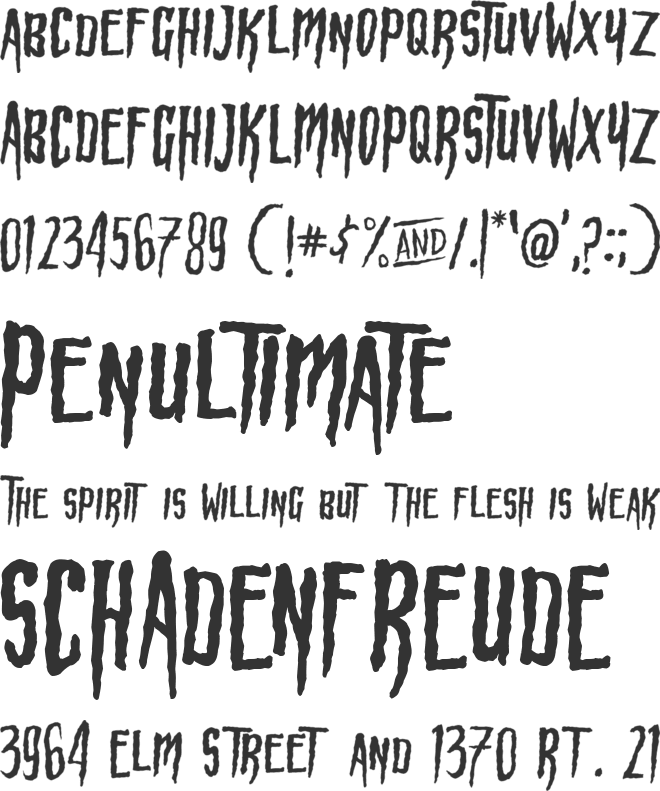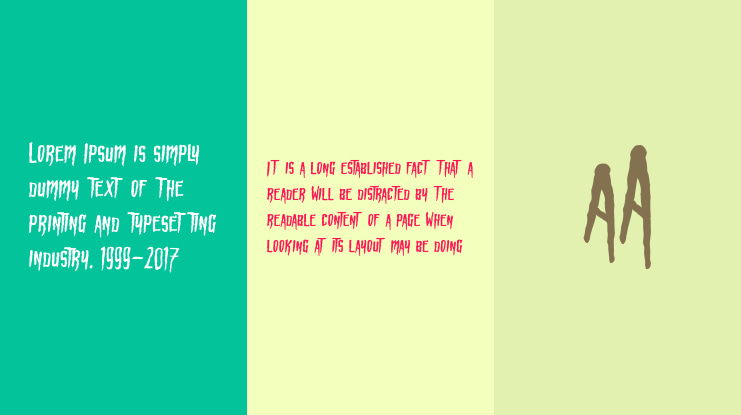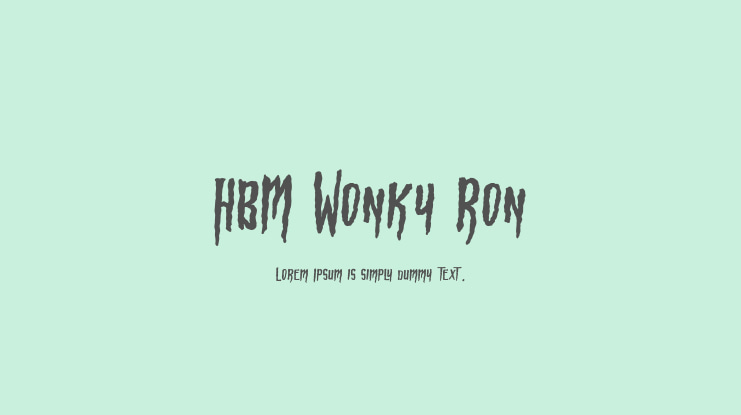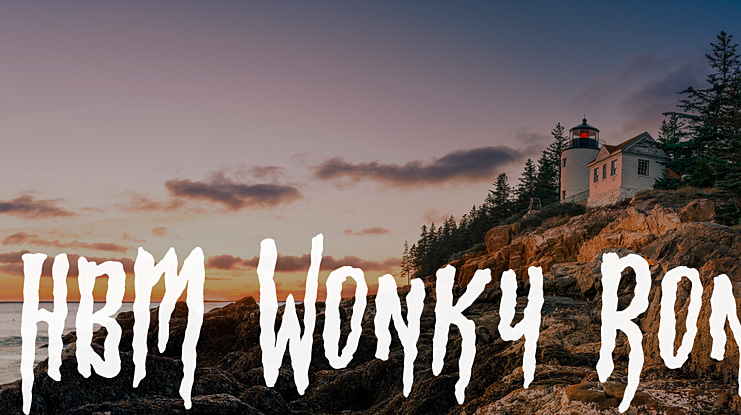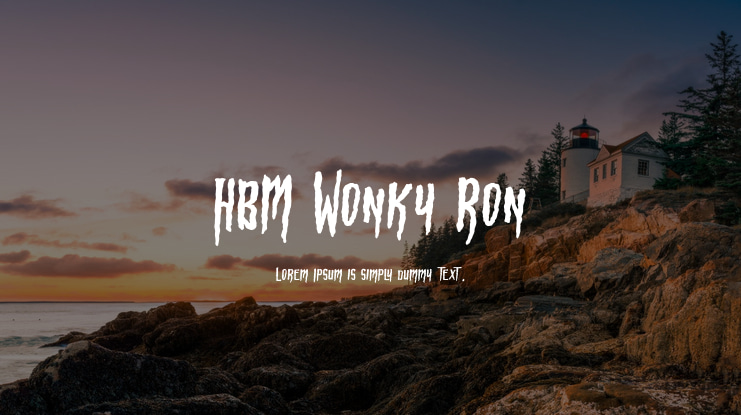
HBM Wonky Ron Font
Wonky Ron is a horror dispay typeface, inspired by classic horror movies and punk rock bands such as "Misfits". It's skinny, wonky and unclean edges give a different yet familiar feel. Wonky Ron is great for headings, logos, quotes, apparel, flyers & posters as well as other print & display graphics!